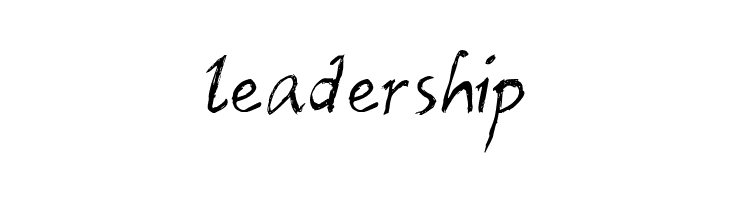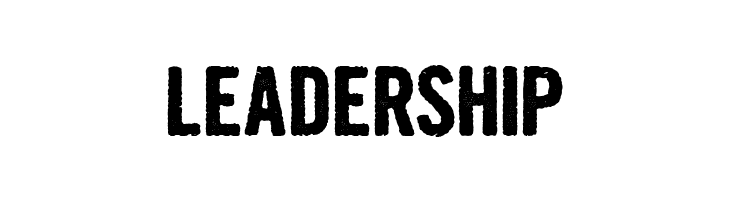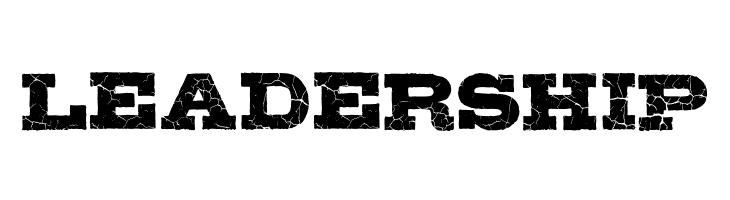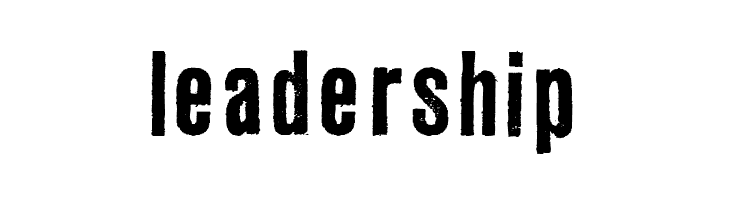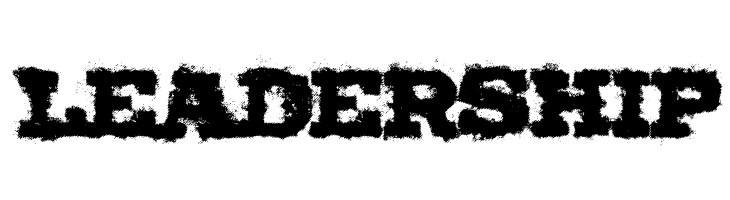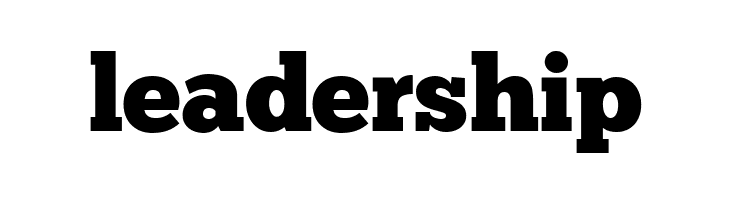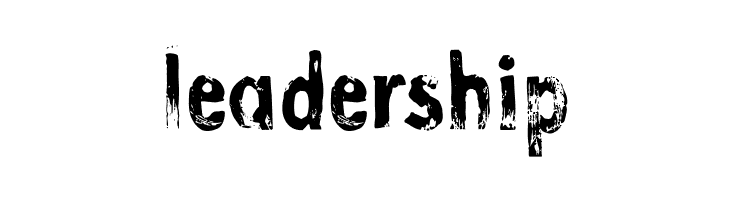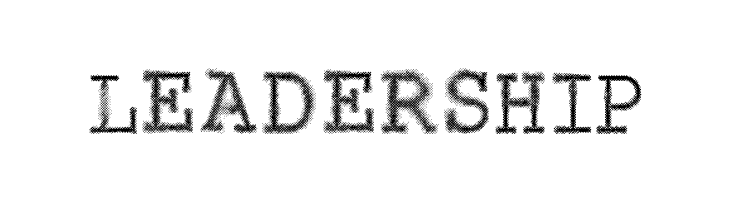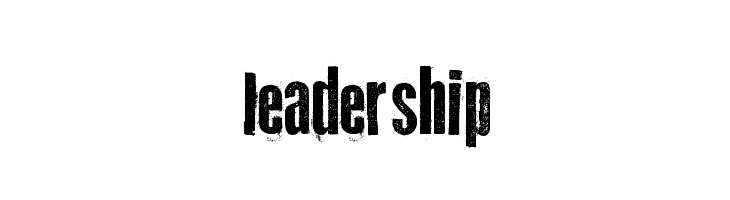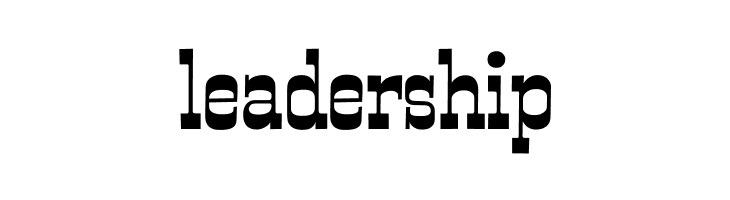
A bold, distressed font with a vintage, rugged style.
A bold, distressed font with a cracked, vintage texture.
A bold, distressed font with a vintage, textured appearance.
A bold, distressed font with a rugged, vintage Western style.
A bold, slab serif font with a strong, vintage aesthetic.
A bold, distressed font with a linocut print style.
A rugged, textured font with a stone-carved appearance.
A bold, textured serif font with a vintage, distressed appearance.
A bold, distressed font with a vintage, rugged appearance.
A bold slab serif font with a vintage Western flair.
A vintage, distressed serif font with a textured, aged appearance.
A bold, distressed font with a vintage, textured style.
A bold, decorative font with a Western flair, ideal for headlines and themed designs.
A bold, distressed font with a vintage, textured appearance.
A textured serif font with a vintage, distressed appearance.
A vintage, typewriter-inspired serif font with a bold, distressed appearance.
A bold, distressed font with a rugged, vintage texture.
A bold, textured font with a rugged, organic appearance.
A bold, decorative font with a Western-inspired, slab serif style.
A bold, decorative font with a rugged, Western-inspired style.
A bold, textured font with a hand-carved, woodcut appearance.
A bold, decorative Western-themed font with barbed wire elements.
A bold, vintage-style font with a rugged, handcrafted appearance.
A bold, decorative font with a vintage Western style and three-dimensional effect.
A bold, hand-drawn font with a textured, sketch-like appearance.